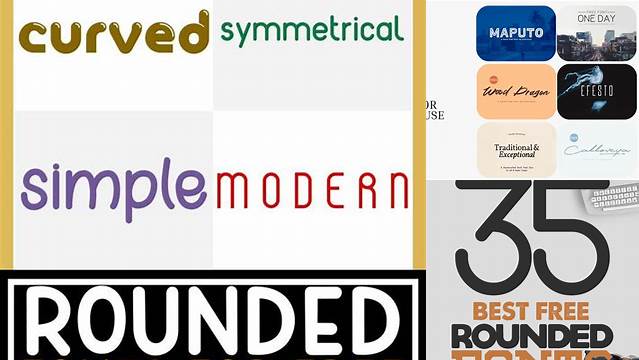
Best Free Rounded Fonts For Commercial Use In 2024
Are you looking for free rounded fonts for commercial use? You've come to the right place! In today's design landscape, typography plays a crucial role in shaping the visual identity of your projects. Rounded fonts, with their soft and approachable aesthetic, have become increasingly popular in various design applications, from logos and branding materials to websites and user interfaces. But finding the perfect rounded font that's both visually appealing and free for commercial use can be a daunting task. Guys, don't worry! This comprehensive guide will walk you through everything you need to know about free rounded fonts for commercial projects, ensuring you make the best choice for your creative endeavors.
Why Choose Rounded Fonts?
First, let's discuss why choosing rounded fonts can be a great decision for your designs. Rounded fonts possess a unique ability to convey warmth, friendliness, and approachability. Their soft, smooth edges create a sense of comfort and ease, making them ideal for projects that aim to connect with audiences on an emotional level. Think about it – a sharp, angular font might convey strength and authority, but a rounded font whispers trust and reliability. This makes them particularly effective for brands targeting families, children, or anyone seeking a friendly and welcoming experience. Rounded fonts are also incredibly versatile. They work beautifully in a wide range of design styles, from minimalist and modern to playful and whimsical. Whether you're designing a logo for a children's toy store, creating a website for a wellness brand, or crafting marketing materials for a non-profit organization, a well-chosen rounded font can add a touch of personality and charm. Furthermore, rounded fonts often improve readability, especially in digital environments. The absence of sharp serifs and corners makes them easier on the eyes, reducing strain and enhancing the overall user experience. This is especially crucial for websites and mobile apps, where users are constantly bombarded with information. By opting for a rounded font, you can ensure that your message is not only visually appealing but also easily digestible. So, if you're aiming for a design that's both inviting and effective, rounded fonts are definitely worth considering.
Top Free Rounded Fonts for Your Projects
Alright, guys, let's dive into some top free rounded fonts that you can use in your projects right away! With so many options out there, it can be overwhelming to choose the right one. So, I've curated a list of some of my personal favorites and widely recommended rounded fonts that are both stylish and free for commercial use. First up is Poppins. This geometric sans-serif font has a friendly and modern feel, making it perfect for logos, headlines, and body text. It comes in a wide range of weights, giving you plenty of flexibility to play with. Next, we have Nunito. Nunito is a well-balanced rounded font that's incredibly versatile. It's clean and legible, making it ideal for user interfaces, websites, and print materials. Like Poppins, Nunito also offers multiple weights to suit your design needs. If you're looking for something a bit more playful, check out Fredoka One. This font has a bold and bubbly personality that's perfect for projects targeting children or anyone seeking a fun and energetic vibe. Fredoka One is particularly well-suited for headlines and branding materials. Another great option is Cabin. Cabin is a humanist sans-serif font with rounded terminals, giving it a warm and approachable feel. It's a great choice for body text, as it's easy on the eyes and highly readable. And last but not least, we have Baloo Bhai 2. This font is a rounded typeface with a touch of Indian flair. It's perfect for adding a unique and cultural touch to your designs. Baloo Bhai 2 is especially well-suited for branding projects and packaging design. These are just a few examples of the many fantastic free rounded fonts available for commercial use. Remember to explore different options and experiment with how they look in your designs. The perfect font is out there waiting to be discovered!
Tips for Using Rounded Fonts Effectively
Now that you've found some great rounded fonts, let's talk about how to use them effectively in your designs. While rounded fonts are versatile and appealing, there are a few key tips to keep in mind to ensure they shine in your projects. First, consider the overall tone and message you want to convey. Rounded fonts generally project friendliness and approachability, so they're not always the best choice for designs that need to convey authority or seriousness. However, if you're aiming for a warm and welcoming feel, rounded fonts are an excellent option. Next, pay attention to font pairing. Choosing the right fonts to pair with your rounded font can make a huge difference in the overall aesthetic of your design. For a clean and modern look, try pairing a rounded font with a simple sans-serif font. If you want to add a touch of contrast, consider pairing a rounded font with a serif font, but be sure to choose a serif font that complements the rounded font's personality. Weight and size are also crucial factors to consider. Using a variety of weights within the same font family can add visual interest and hierarchy to your design. For example, you might use a bold rounded font for headlines and a lighter weight for body text. Similarly, the size of your font can impact readability and visual impact. Be sure to choose a font size that's appropriate for the context and target audience. Another important tip is to use whitespace effectively. Rounded fonts often benefit from ample whitespace around them, as this helps to create a clean and uncluttered design. Avoid overcrowding your design with too much text or graphics, and let your rounded font breathe. Finally, don't be afraid to experiment! Try different rounded fonts in various contexts and see what works best for your project. The more you experiment, the better you'll become at choosing and using rounded fonts effectively.
Combining Rounded Fonts with Other Design Elements
Let's explore how combining rounded fonts with other design elements can elevate your overall aesthetic. Typography doesn't exist in a vacuum; it interacts with every other element on your canvas, from colors and imagery to shapes and layouts. Mastering this interplay is key to creating truly stunning designs. When it comes to color palettes, rounded fonts often pair beautifully with soft, muted tones. Think pastels, earthy hues, and gentle gradients. These colors enhance the friendly and approachable nature of rounded fonts, creating a cohesive and harmonious visual experience. However, don't be afraid to experiment with bolder colors as well. A vibrant color palette can add a playful and energetic touch to designs featuring rounded fonts, especially for projects targeting a younger audience. Imagery is another crucial element to consider. Rounded fonts tend to complement organic shapes and illustrations, such as hand-drawn elements, watercolor textures, and natural landscapes. These visuals echo the soft curves and gentle nature of rounded fonts, creating a sense of visual harmony. If you're using photographs, opt for images that convey warmth and emotion. Photos of people smiling, cozy interiors, or natural settings can all pair well with rounded fonts. In terms of layout, rounded fonts often thrive in designs with ample whitespace and clean lines. A minimalist layout allows the font to stand out and make a statement without feeling cluttered or overwhelming. However, rounded fonts can also work well in more complex layouts, as long as there's a clear visual hierarchy. Consider using different font weights, sizes, and colors to guide the viewer's eye through the design. Finally, don't forget the power of contrast. Pairing a rounded font with a contrasting element, such as a geometric shape or a bold color accent, can create visual interest and make your design more dynamic. The key is to find a balance between harmony and contrast, ensuring that all elements work together to create a cohesive and impactful message.
The Future of Rounded Fonts in Design
So, what does the future hold for rounded fonts in design? As design trends continue to evolve, rounded fonts are likely to remain a popular choice for their versatility and friendly aesthetic. However, we can expect to see some interesting developments and new applications of rounded fonts in the coming years. One trend to watch is the increasing use of variable fonts. Variable fonts allow designers to adjust various aspects of a font, such as weight, width, and slant, using sliders. This gives designers unprecedented control over typography and opens up exciting possibilities for creating unique and dynamic designs. Rounded fonts are particularly well-suited to variable font technology, as the smooth curves lend themselves well to gradual adjustments and transformations. Another trend to watch is the integration of rounded fonts into motion graphics and animation. The soft and approachable nature of rounded fonts makes them a natural fit for animated text and logos, adding a touch of personality and warmth to moving visuals. We can also expect to see rounded fonts playing an increasingly important role in user interface (UI) design. As websites and apps strive to create more user-friendly and intuitive experiences, rounded fonts offer a way to make interfaces feel more welcoming and approachable. The improved readability of rounded fonts in digital environments also makes them a smart choice for UI design. Furthermore, as design becomes more personalized and inclusive, we can expect to see a wider variety of rounded font styles emerge. Designers are increasingly experimenting with different shapes, weights, and proportions to create rounded fonts that cater to specific audiences and design contexts. In conclusion, the future of rounded fonts in design looks bright. Their versatility, friendliness, and adaptability make them a timeless choice for a wide range of projects, and we can expect to see even more innovative uses of rounded fonts in the years to come. So, keep exploring, experimenting, and pushing the boundaries of what's possible with rounded typography!
In conclusion, free rounded fonts for commercial use are a valuable asset for any designer or business looking to create visually appealing and engaging materials. They offer a unique blend of warmth, friendliness, and versatility, making them suitable for a wide range of projects. By understanding font licensing, knowing where to find high-quality fonts, and following best practices for font pairing and usage, you can effectively incorporate rounded fonts into your designs and elevate your brand's visual identity. So go ahead, explore the world of rounded fonts, and let your creativity flow! Remember to always respect font licenses and support the designers who create these amazing resources. Happy designing, guys!